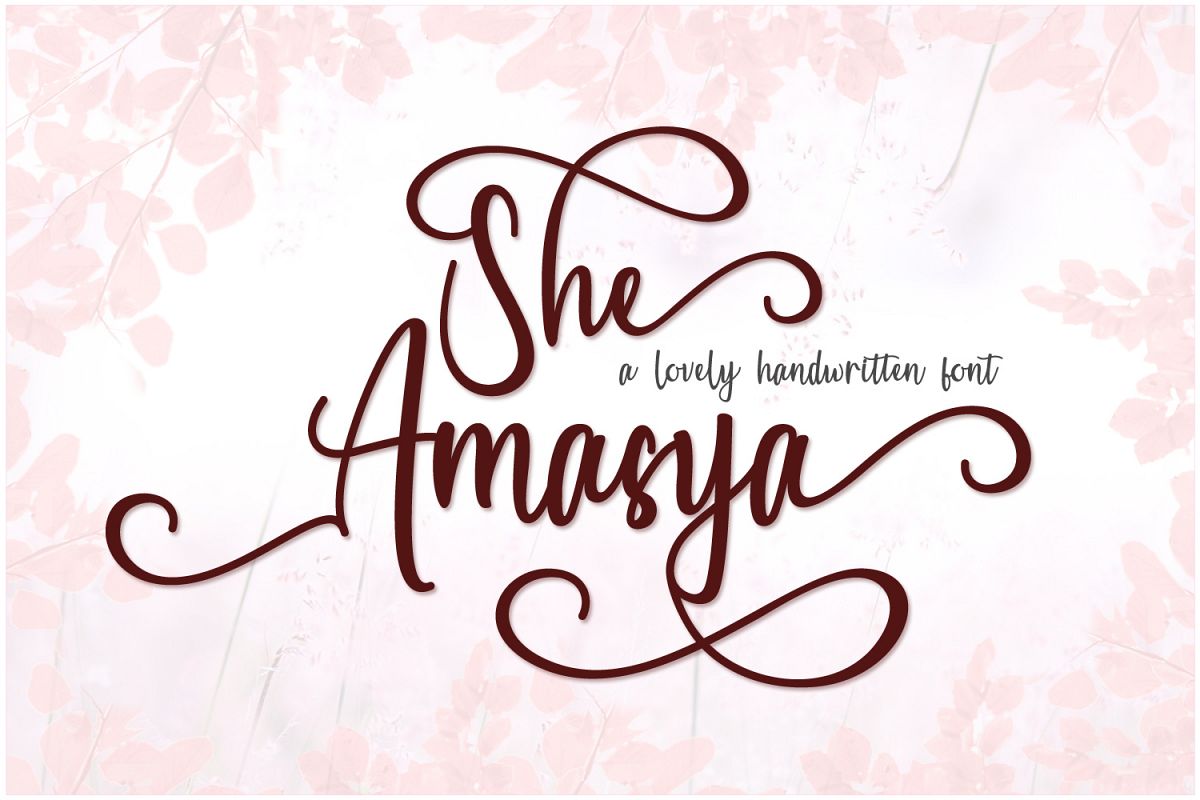
She Amasya
She amasya is a script font with a natural handwriting impression in each letter and the addition of some ligature and stylistic alternate making it very suitable applied to a wide variety of projects, such as material logos, branding, quotes, wedding invitations, watermark photography, advertising, book covers and more.She Amasya features:
• Stylistic Alternates & Ligatures